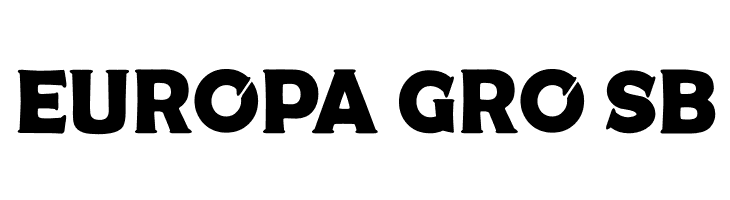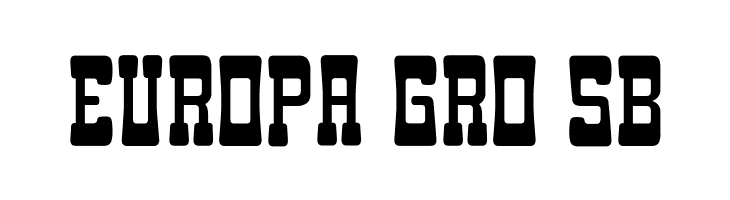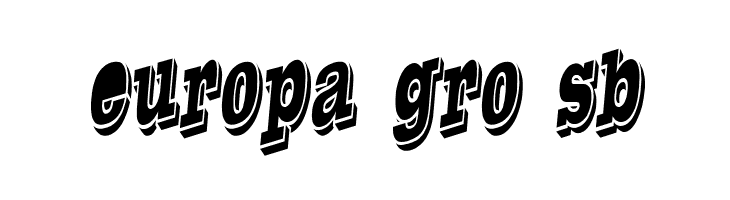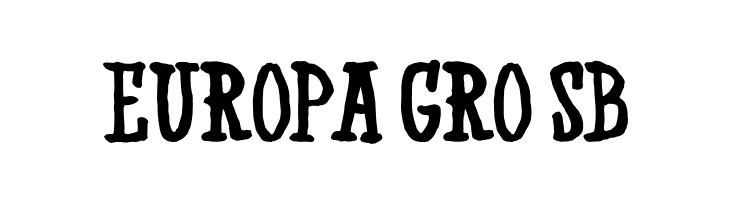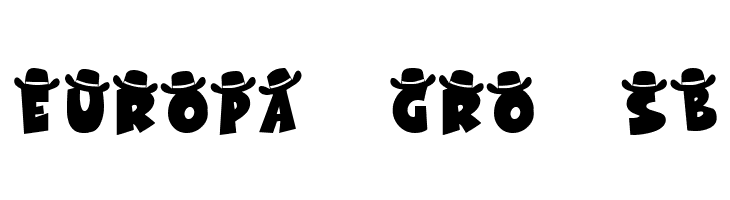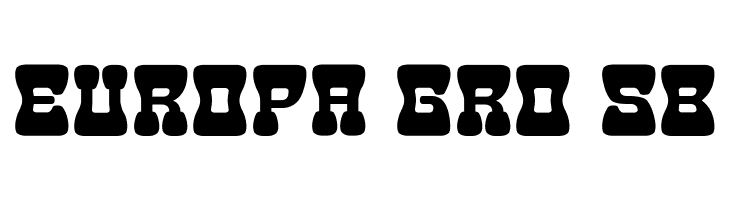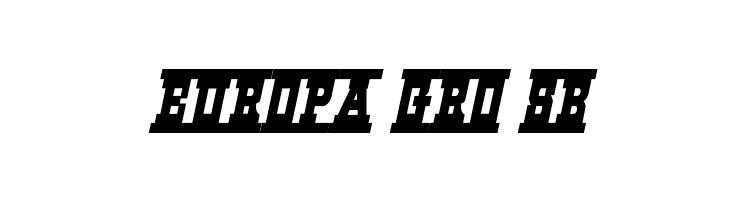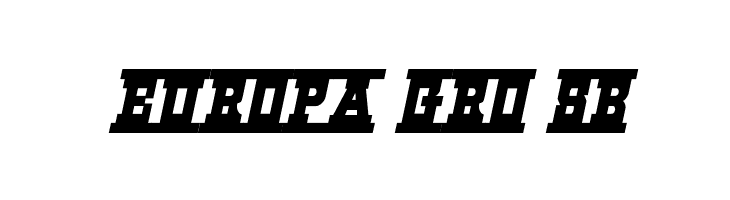
Barbaro Western Font
A bold, Western-themed font with strong serifs and a vintage appeal.
GoldRush Font
A bold, decorative font with a vintage Western style and intricate detailing.
Berg Western Regular Font
A bold, Western-style font with strong serifs and a rugged appearance.
Thunderbird Font
A bold, slab serif font with a vintage Western style.
Outlaw Font
A bold, decorative font with a vintage, western-inspired design.
Pointedly Mad SmallCaps Font
A bold, vintage-inspired serif font with strong, block-like serifs.
Expo Font
A bold, playful slab serif font with a dynamic and slightly condensed style.
Western Font
A bold, decorative font with a vintage Western style.
dispatch-black Font
Abstract glyphs using smiley faces within black rectangles.
Lato-Hairline Font
A sleek, minimalist font with thin, uniform strokes and a modern aesthetic.
Berg western Rough Font
A bold, distressed slab serif font with a vintage Western aesthetic.
Western Normal Font
A bold, decorative slab serif font with a Western-inspired style.
Jellyka Western Princess Font
A whimsical, cursive script font with elegant loops and swirls.
Old Town Font
A bold, slab serif font with a vintage Western aesthetic.
Bosox Font
A bold, vintage-style serif font with a classic, collegiate feel.
Bosox Full Font
A bold, decorative font with a vintage, handcrafted look.
Showguide Normal Font
A bold, impactful font with a vintage, Western-inspired style.
Gambler Font
A bold, vintage-style serif font with strong, block-like serifs.
POSTOFFICE Font
A bold serif font with a shadow effect, offering a classic yet modern look.
Beans Font